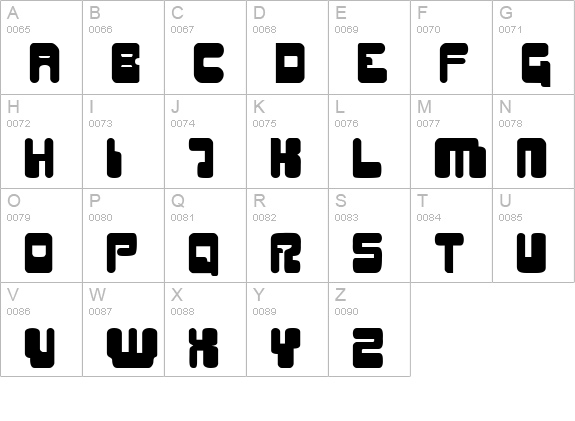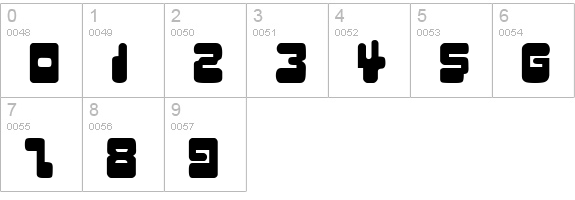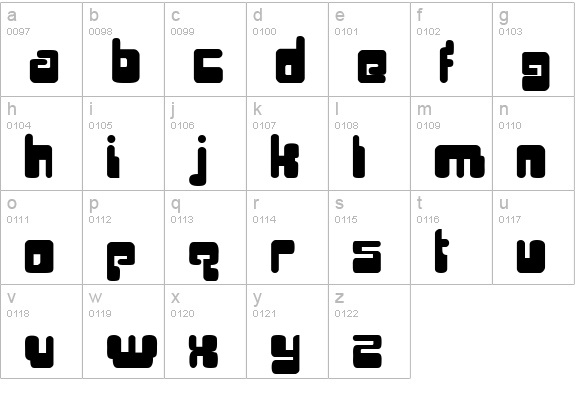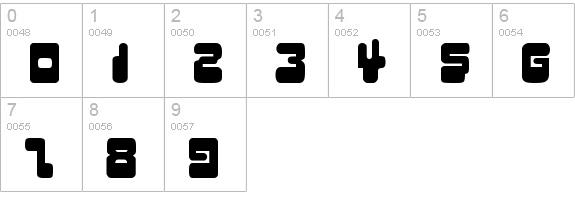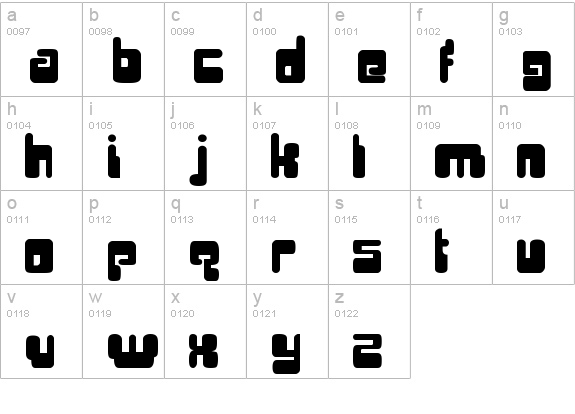
Digifit font is a modern and stylish typeface perfect for digital projects, branding, and more. With its sleek lines and contemporary design, Digifit adds a touch of sophistication to any creative endeavor. This versatile font is ideal for websites, logos, advertisements, and beyond. The best part? Digifit font is completely free to download at FontsMarket.com. You can enhance your designs with this stunning font without breaking the bank. Don't miss out on the opportunity to elevate your projects with Digifit's professional and eye-catching aesthetic. Download Digifit font today and take your designs to the next level!